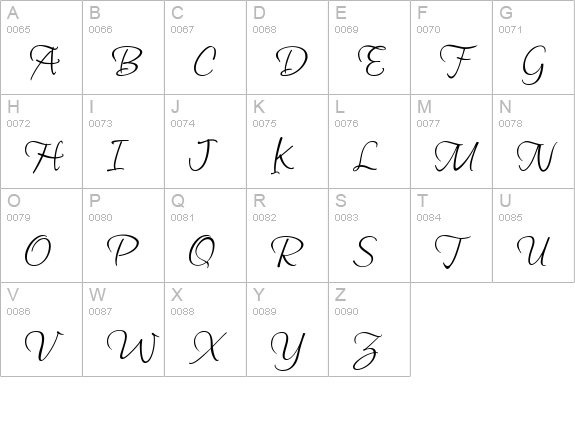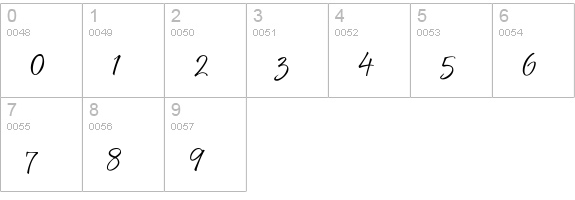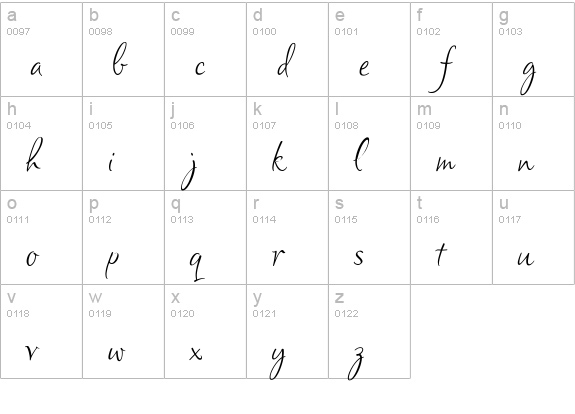
ClarissaRegular Font Details
ClarissaRegular font is a versatile and modern typeface that is perfect for a wide range of design projects. With its clean lines and elegant curves, this font exudes a sense of sophistication and professionalism. Whether you are creating a logo, website, or any other graphic design project, ClarissaRegular font will add a touch of class to your work. This font is freely available to download at FontsMarket.com, making it accessible to designers of all levels. Its timeless design and readability make it a popular choice for both print and digital media. The versatility of ClarissaRegular font allows it to be used in a variety of applications, from branding to editorial design. With its unique character and style, ClarissaRegular font is sure to make a statement in your design projects. Download it for free today at FontsMarket.com and elevate your designs with this elegant and sophisticated typeface.